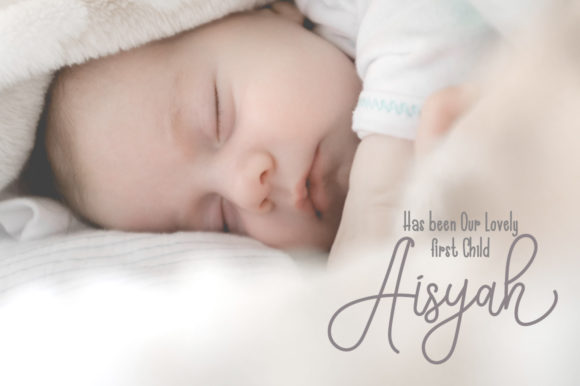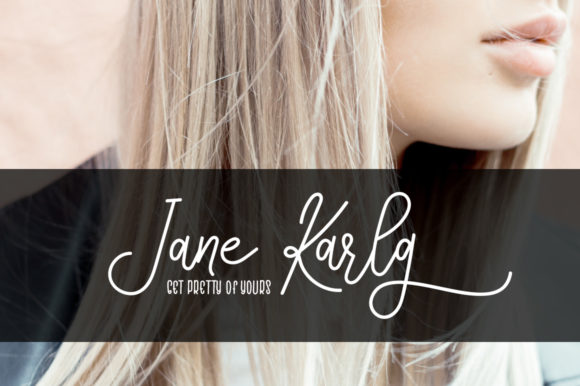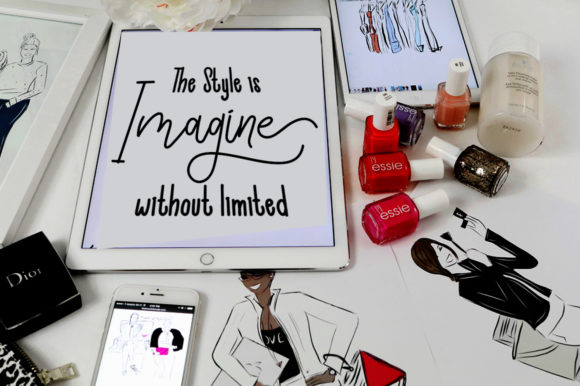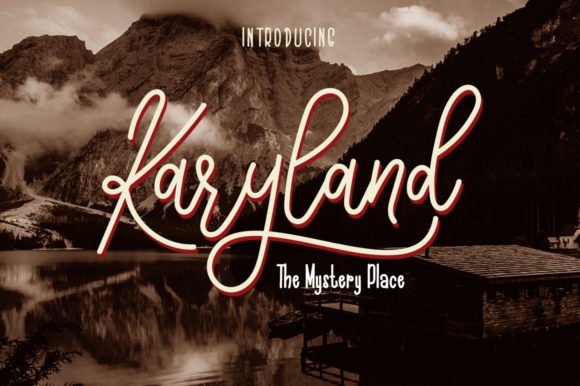
Introduction to Karyland Duo Font
The Karyland is a striking font duo.
Both styles can be combined perfectly which gives you the opportunity to create multiple unique designs in an instant It’s hand-lettered style is perfect for greeting cards, branding, stationary, social media designs, magazines, logos, and much more.